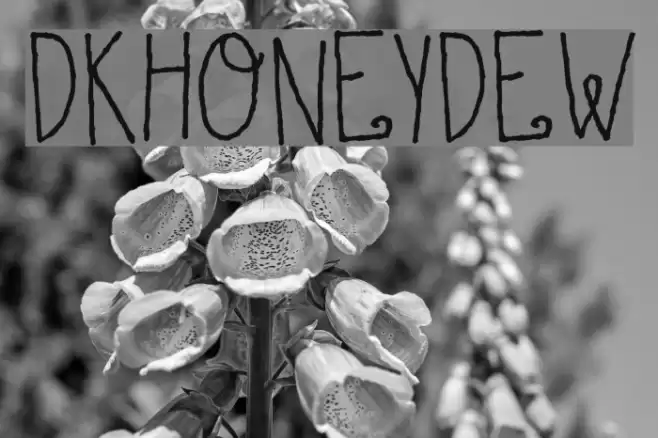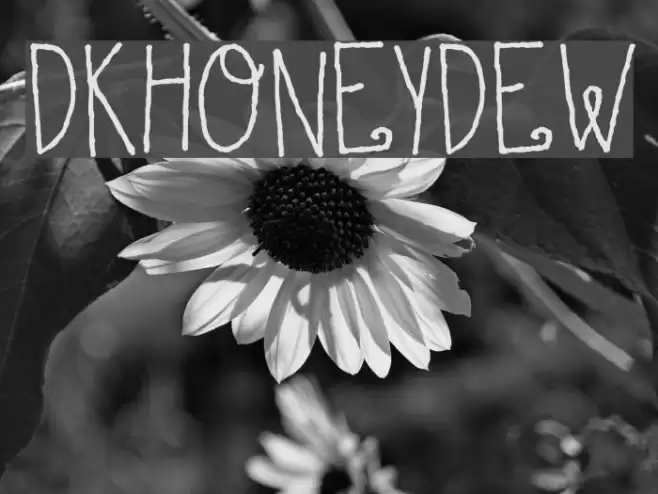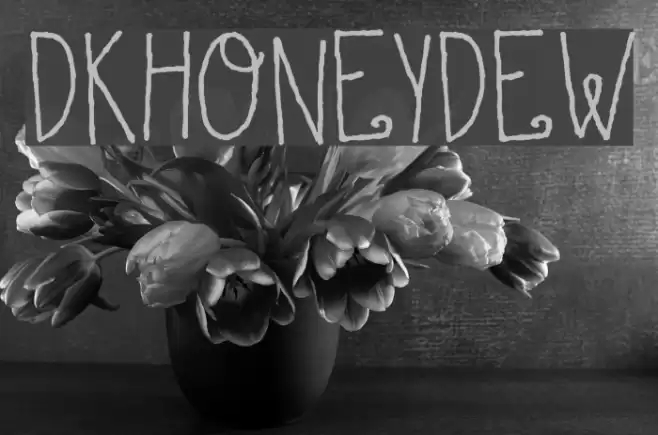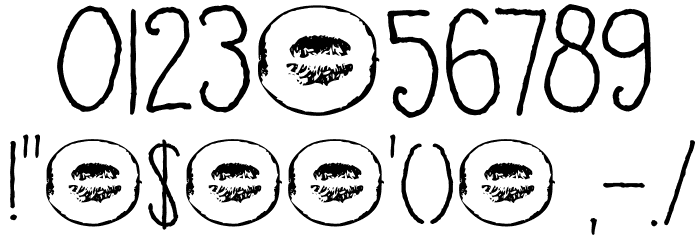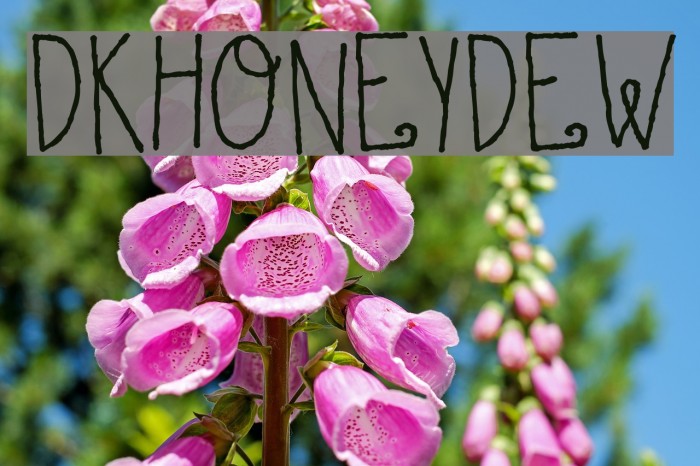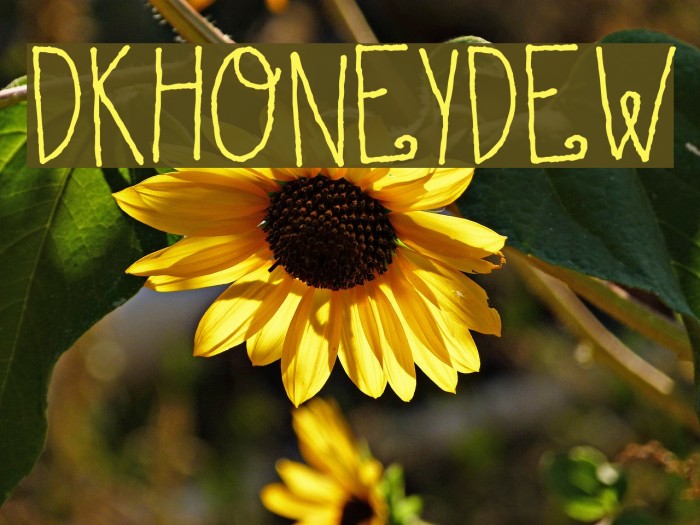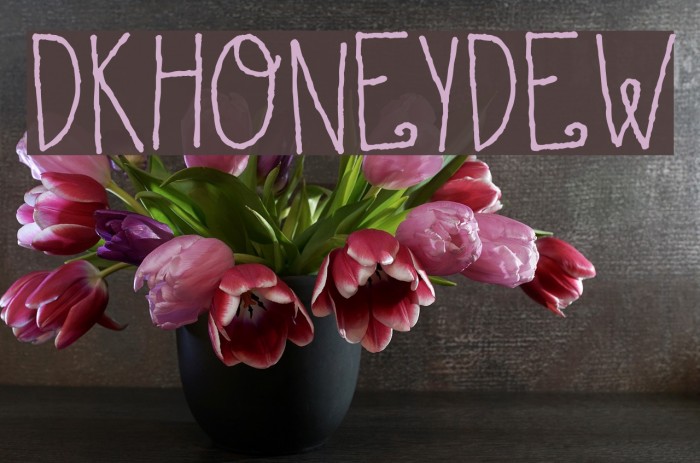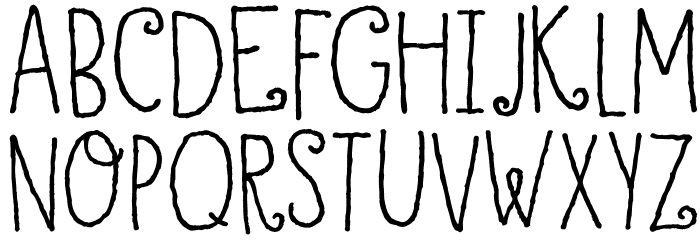
DKHoneyDew Font
DKHoneyDew Description
This font features a playful and whimsical design, characterized by its irregular, hand-drawn appearance. The letters have a slightly uneven stroke, giving them a casual and organic feel. The uppercase and lowercase letters maintain a consistent style, with some characters featuring unique curls and loops that add to the font's charm. The numbers and special characters follow the same playful aesthetic, making them suitable for creative and informal projects. The overall look is reminiscent of a handwritten script, yet it retains a level of readability that makes it versatile for various uses.
A playful, hand-drawn font with a whimsical and organic style from Curly fonts.
- Proposed Projects: Ideal for children's books, greeting cards, playful branding, and creative posters.
- Overall Style: Whimsical
- Use Case: Logos, Posters, Creative projects